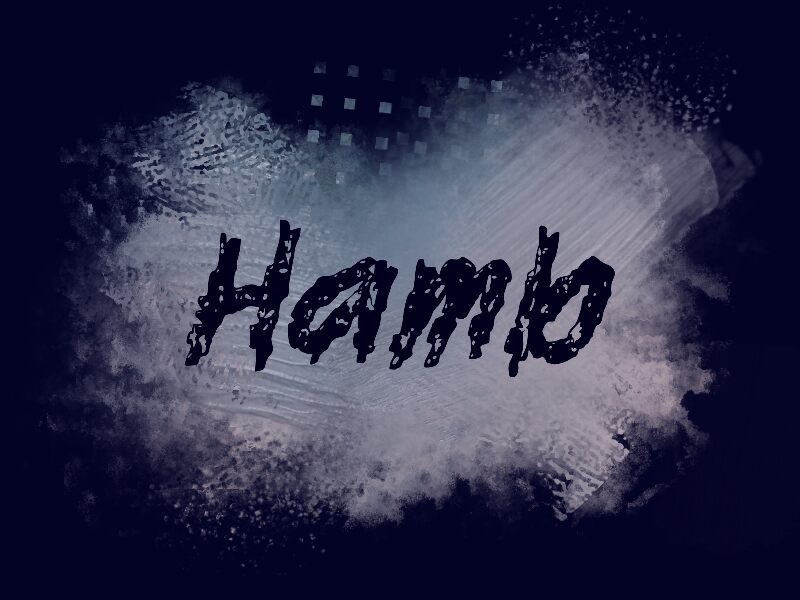
Hamb
Hamb font by wep is a free trash script typeface that looks like it’s been scrawled in thick, half-dried ink and then chewed up by a photocopier. The letters tangle into each other with jagged edges, blotchy fills, and raw gaps, giving every word a frantic, hand-made energy. It feels noisy, dirty, and a little unhinged—exactly the kind of texture you can’t fake with clean vectors alone.
Using Hamb, this free font, you can push horror posters, underground gig flyers, punk zines, album art, streetwear graphics, and edgy social promos into full-on chaos. Its dense, splattered rhythm works best big and bold, where all the grit and tearing really shows. For balance, pair Hamb with a plain, narrow sans serif for small supporting text, letting this wild script handle the loud, in-your-face moments.